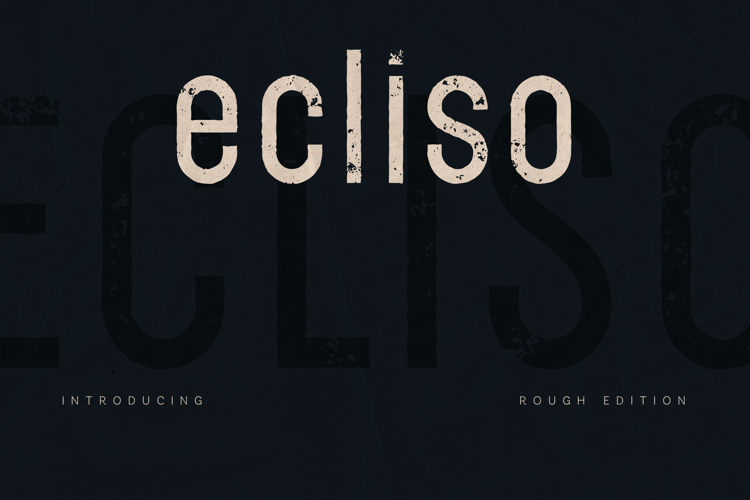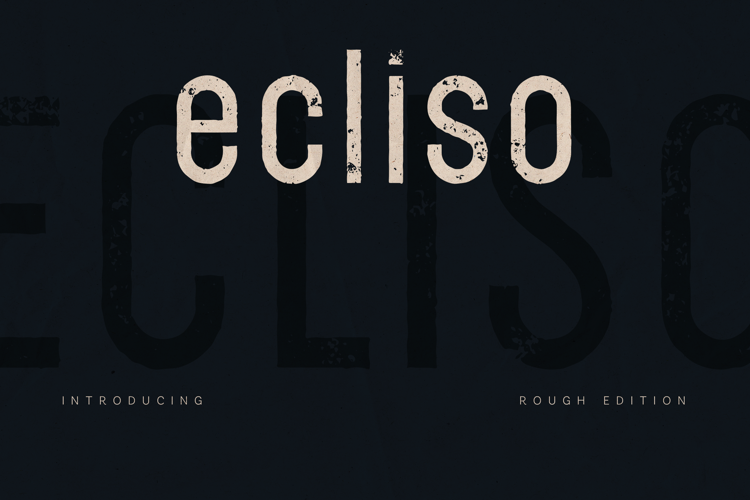
Ecliso Rough Edition Vintage Distressed Sans Serif Font
Ecliso Rough Edition is a bold distressed sans serif typeface designed with a dense vintage texture that gives every letter a raw and authentic printed appearance.
Inspired by worn ink, aged posters, and handmade signage, this typeface delivers a strong handcrafted personality while maintaining clear and readable letterforms. The textured strokes create a natural grunge effect that works beautifully in bold headlines, posters, branding, and packaging.
The rough texture adds depth and character to typography, making designs feel more tactile and expressive. Despite the distressed look, the structure remains balanced and highly usable for a wide range of creative projects.
Ecliso Rough Edition is ideal for designers who want typography that feels vintage, raw, and authentic.
Perfect For• Vintage branding
• Posters and flyers
• Apparel design
• Packaging
• Logos
• Editorial layouts
• Streetwear graphics
• Social media designs